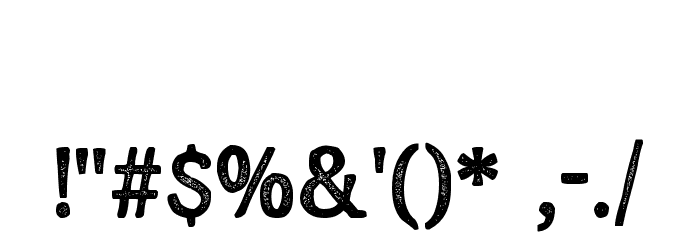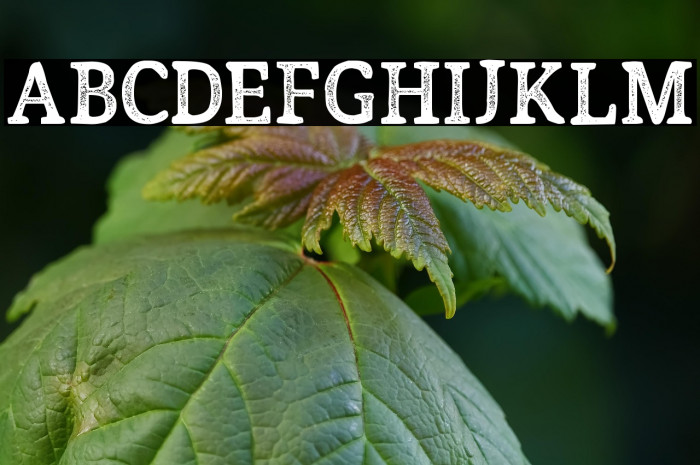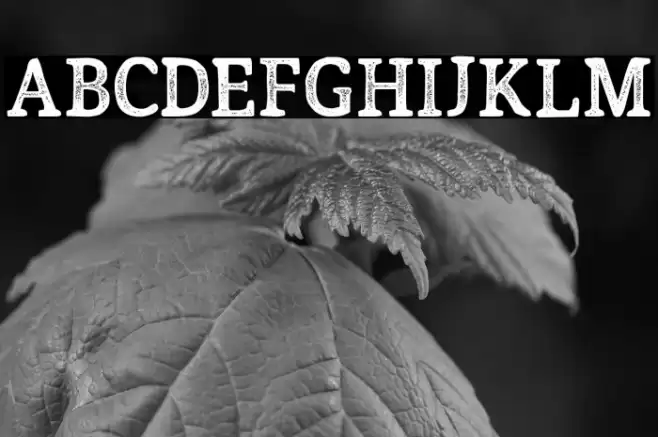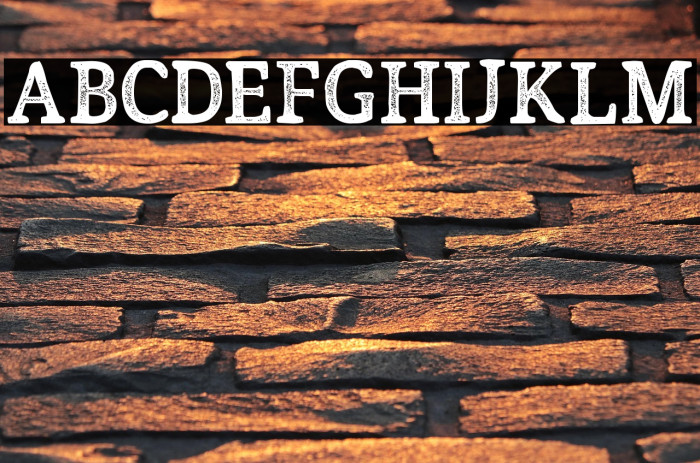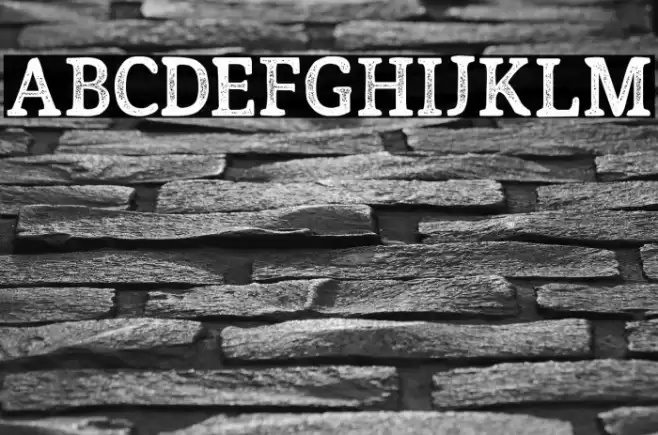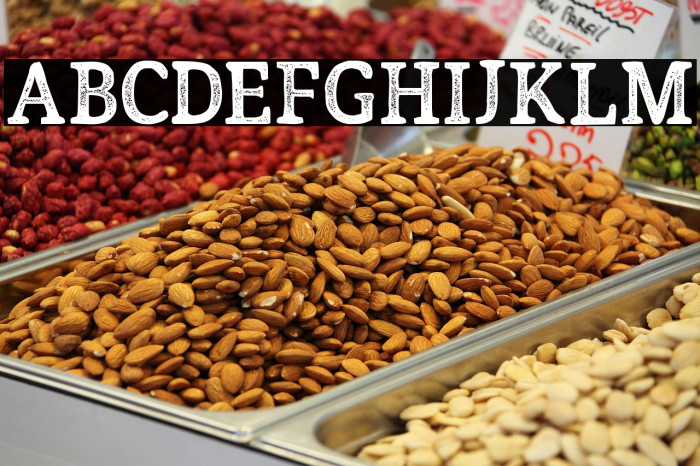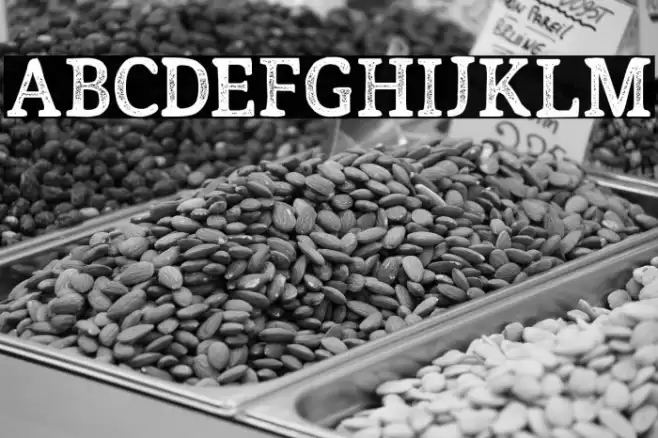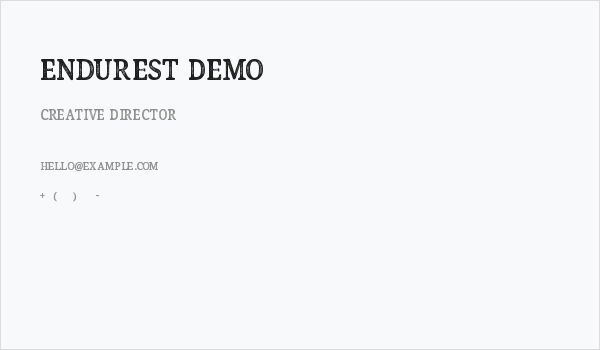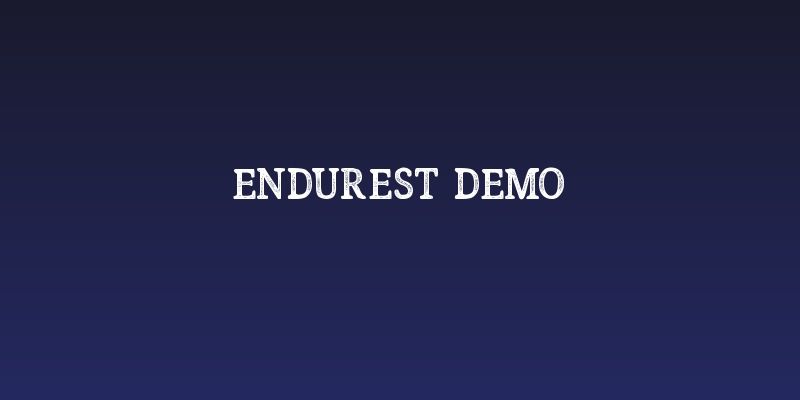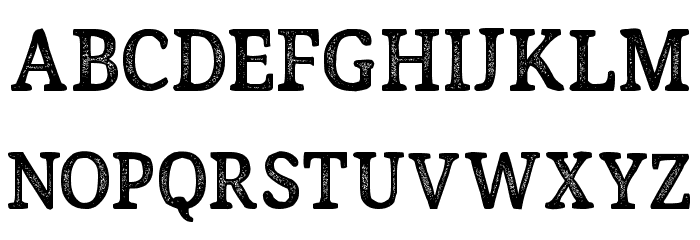
Endurest Demo Font
Endurest Demo Description
This font features a bold, textured appearance with a distressed, vintage style. The characters are serifed, with each letter exhibiting a rugged, worn-out texture that gives it a unique, handcrafted feel. The uppercase and lowercase letters maintain a consistent design, with the serifs adding a touch of elegance to the otherwise rough aesthetic. The numbers and special characters follow the same design principles, ensuring a cohesive look across all glyphs. The font's boldness and texture make it stand out, ideal for projects that require a strong, eye-catching typeface.
| Proposed Projects | Ideal for vintage-themed posters, branding, packaging, and headlines that require a strong, distinctive look. |